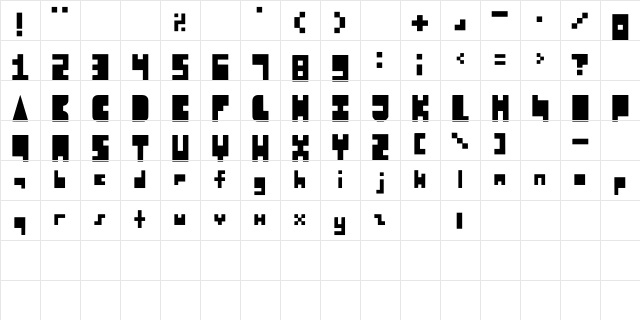
8-bit Block Party bitBlockParty
Style: bitBlockParty
Design Context for 8-bit Block Party
8-bit Block Party is a composed and adaptable typeface that performs quietly and consistently across a wide range of design contexts.